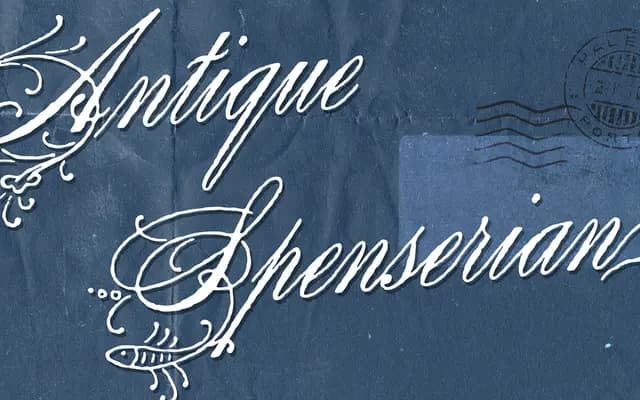
Antique Spencerian specimen from Dharma Type
A hand-distressed Spencerian script in two styles, drawing on a 19th-century MacKellar, Smiths & Jordan original for formal and decorative use.
Two styles make up the family: a Standard cut suited to both text and display work, and an Ornamented Capitals variant with decorative flourishes for headlines, invitations and logos. Each glyph has been individually hand-distressed to produce an antique texture that reads as genuinely aged rather than digitally filtered. The combination of formal Spencerian structure with worn detailing makes it a practical choice for projects that need period character without resorting to generic Victorian pastiche.
Directly inspired by Spencerian script, a 19th-century copperplate-derived cursive tradition; the hand-distressed texture and ornamented capitals place it firmly in the decorative script category.